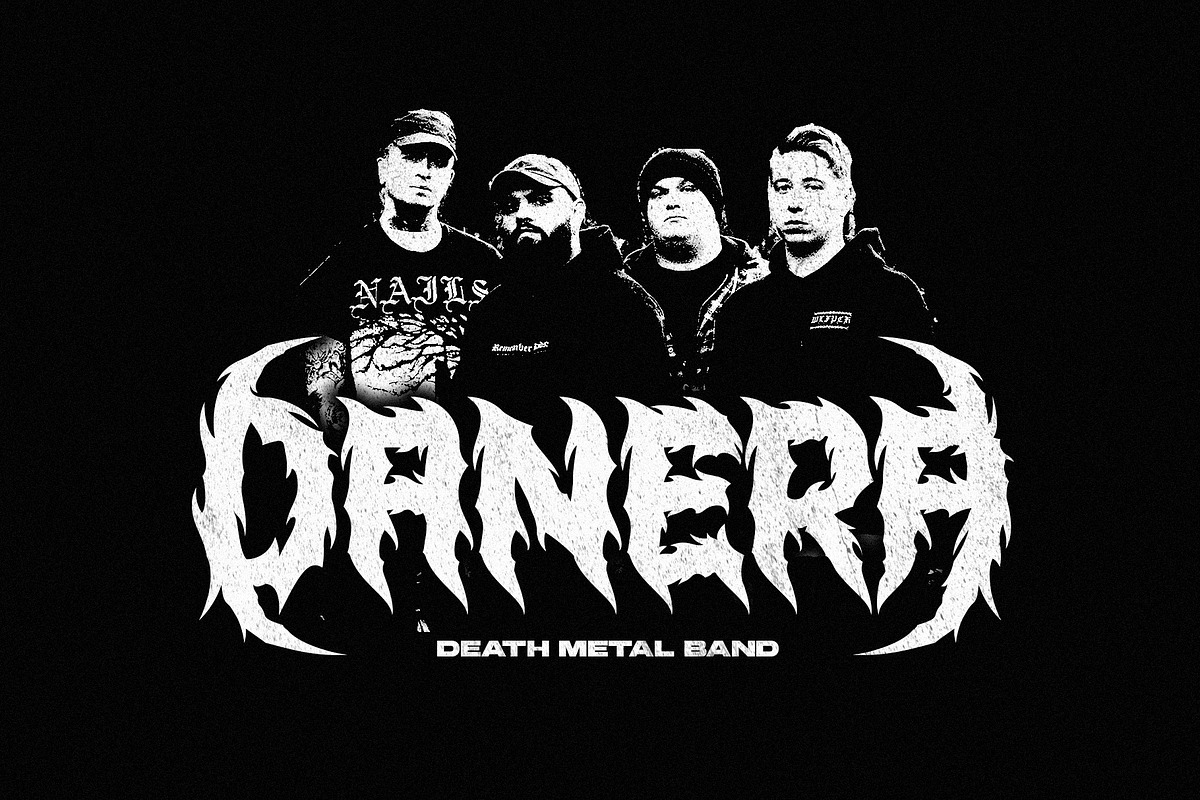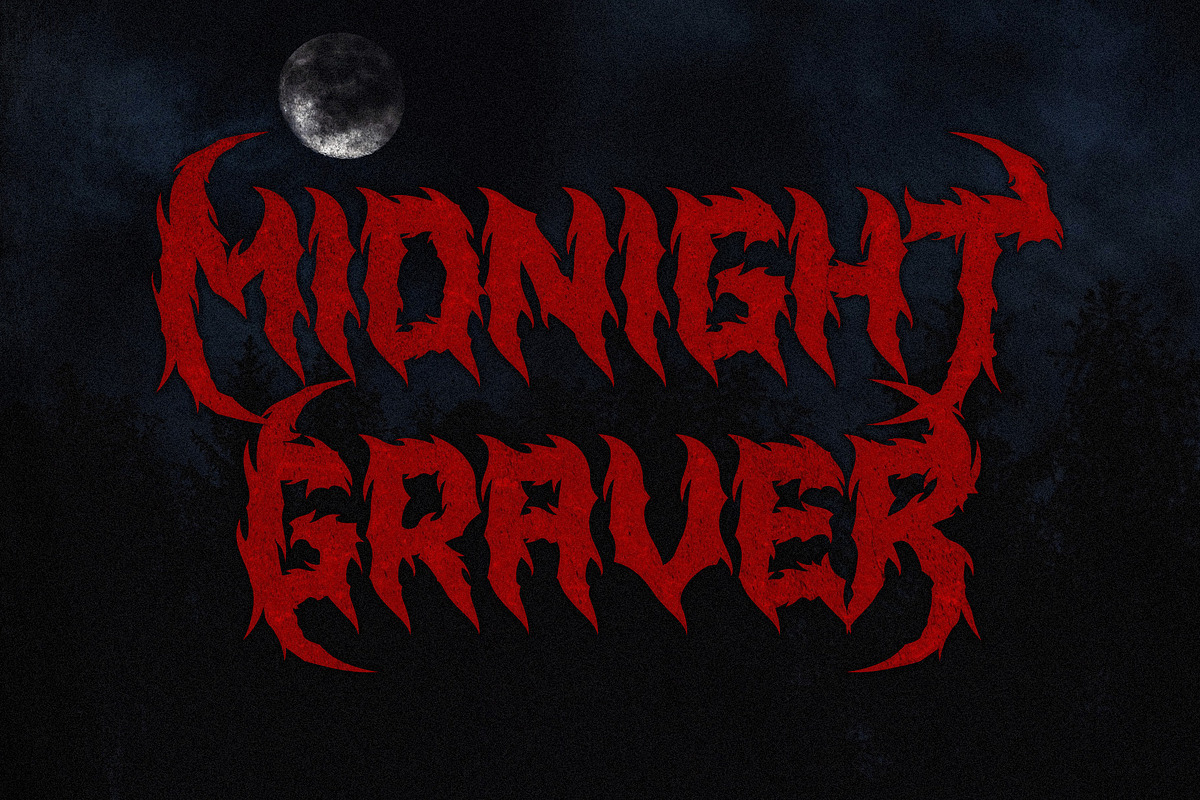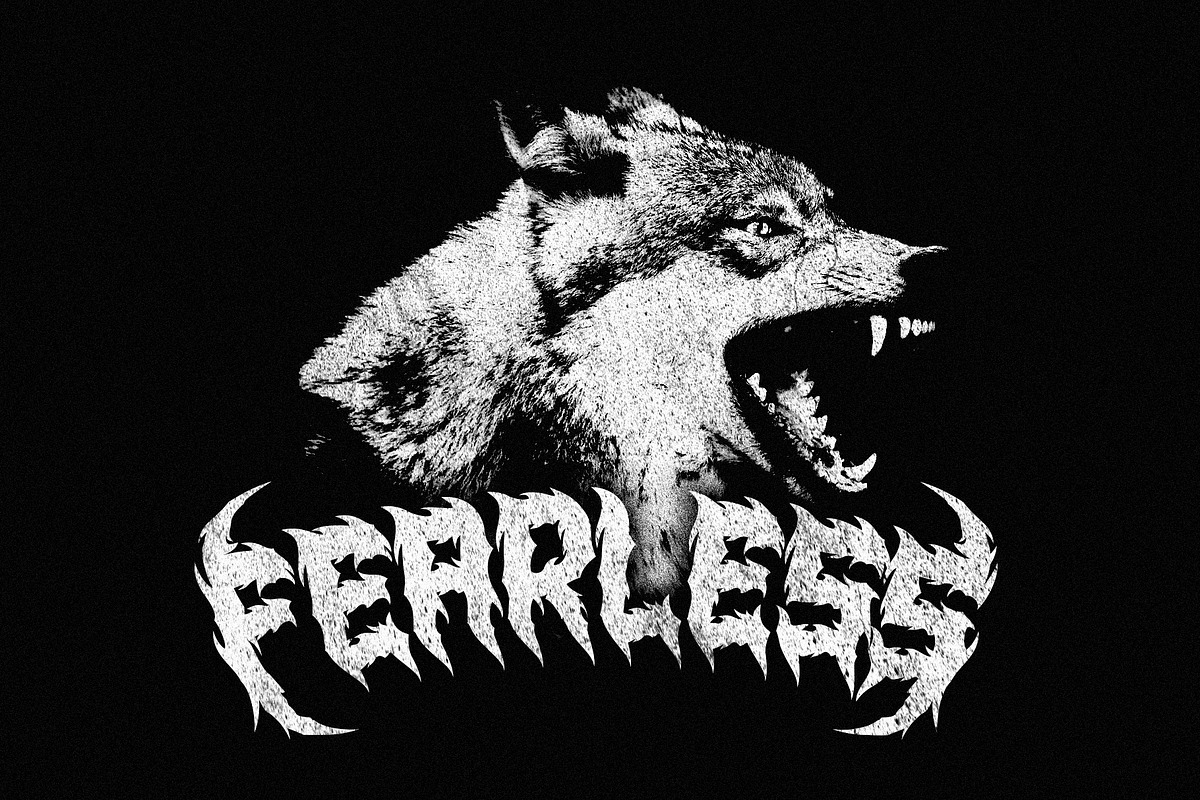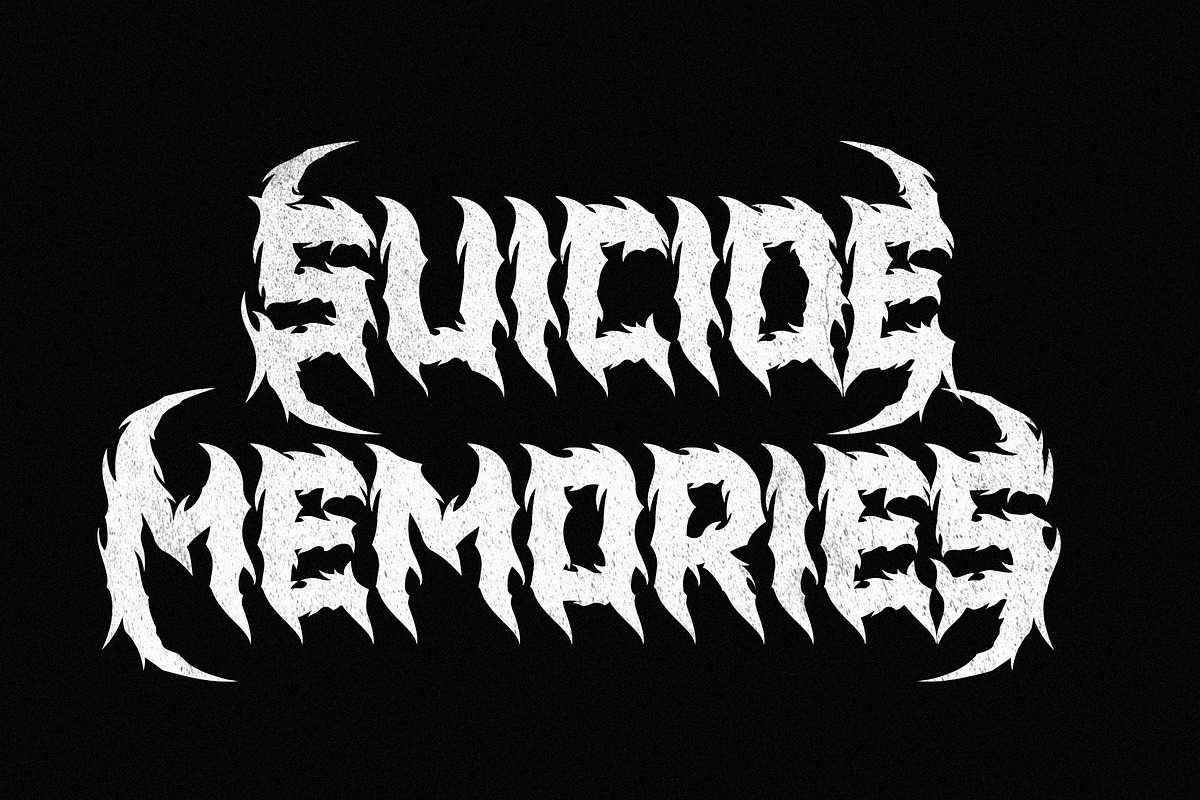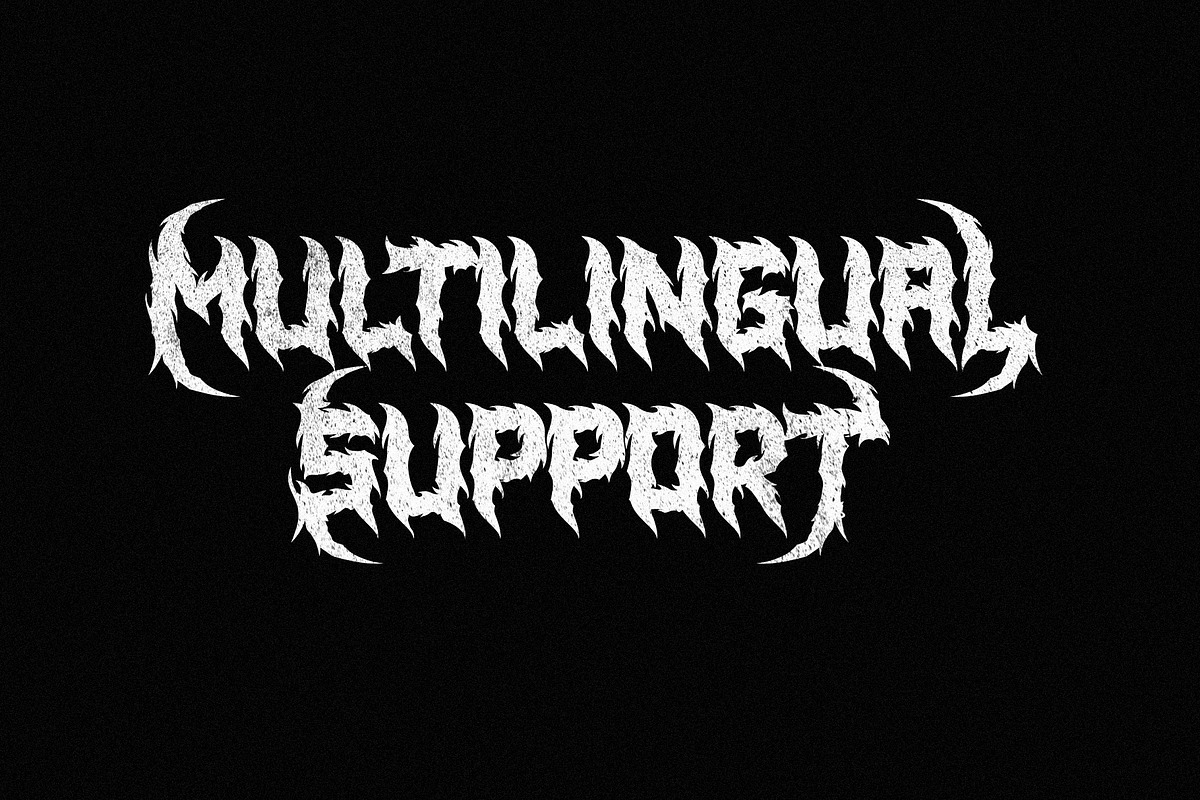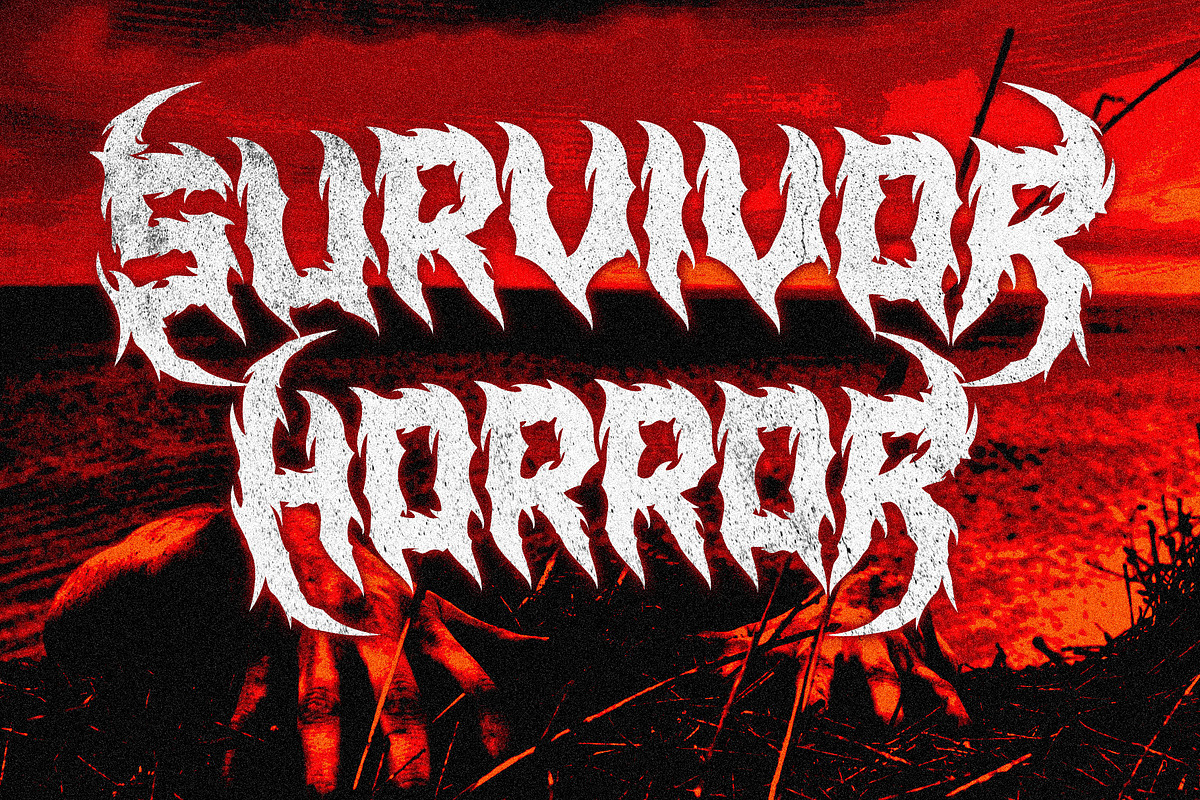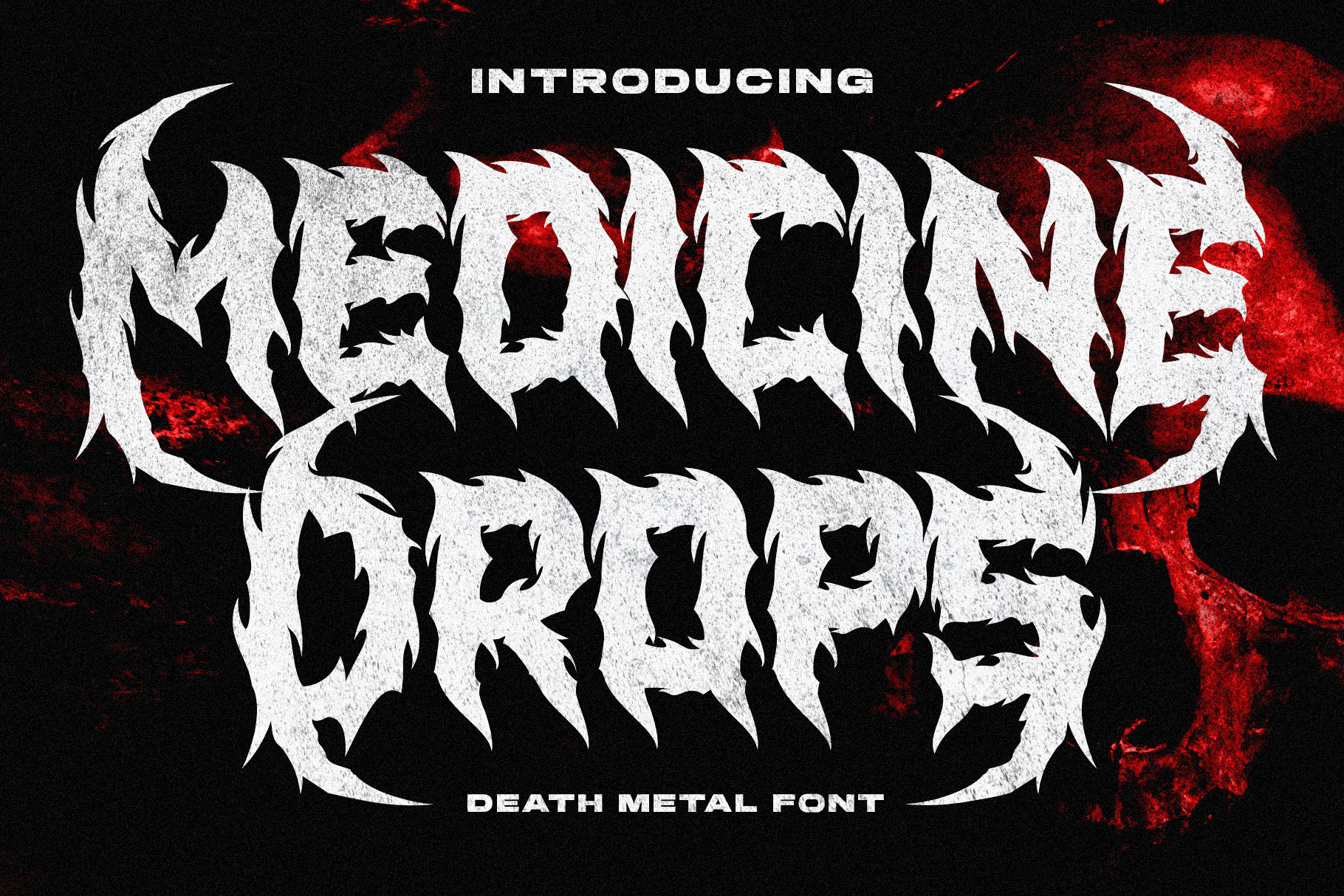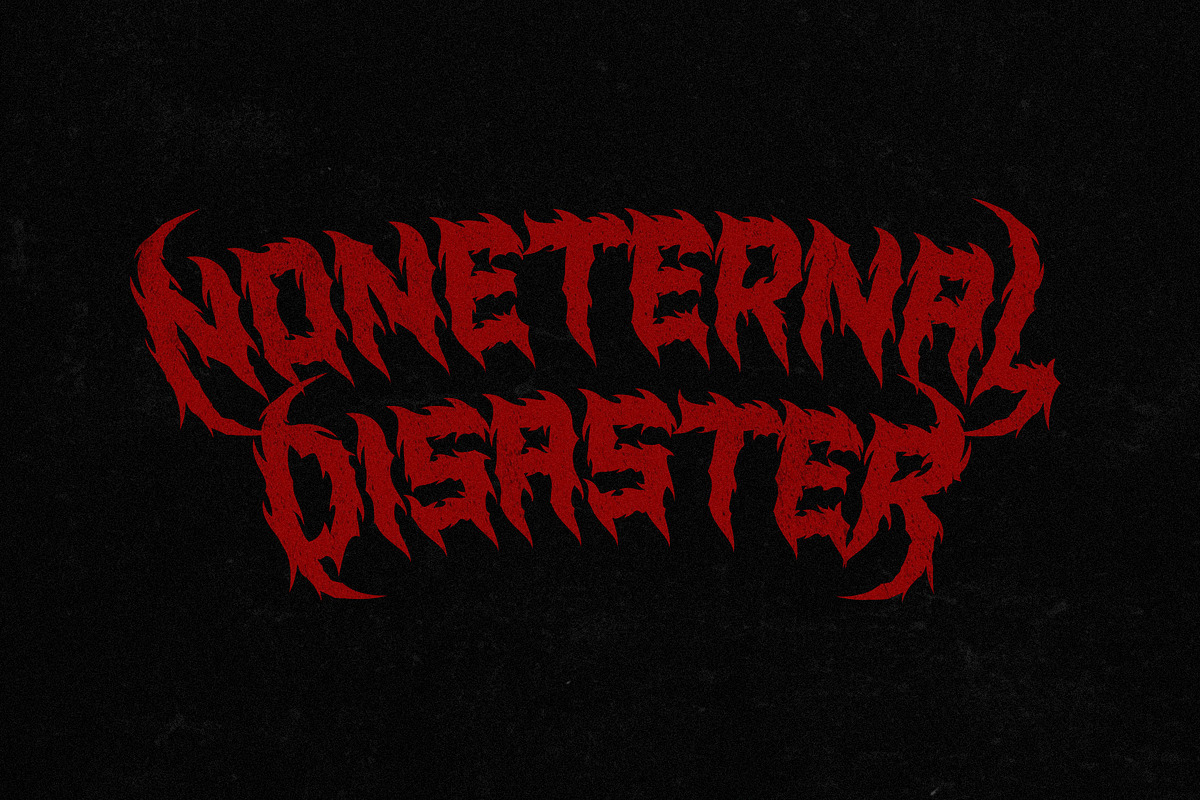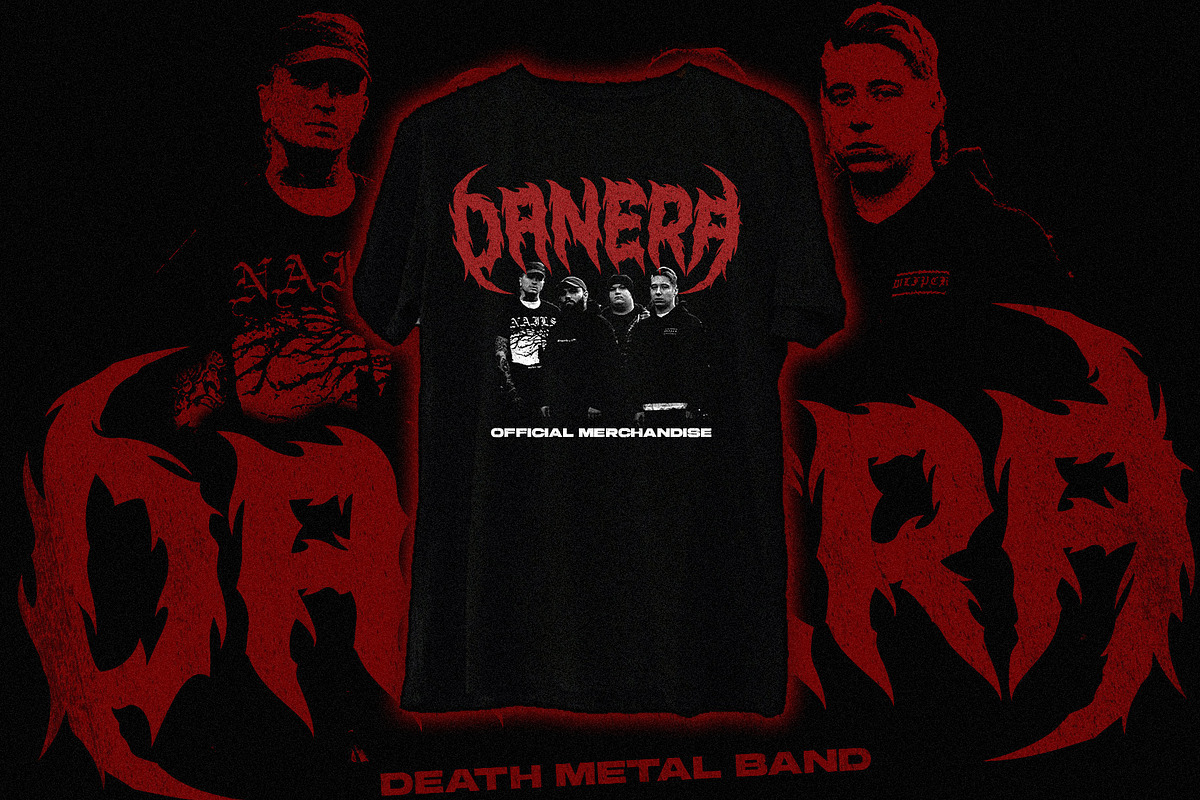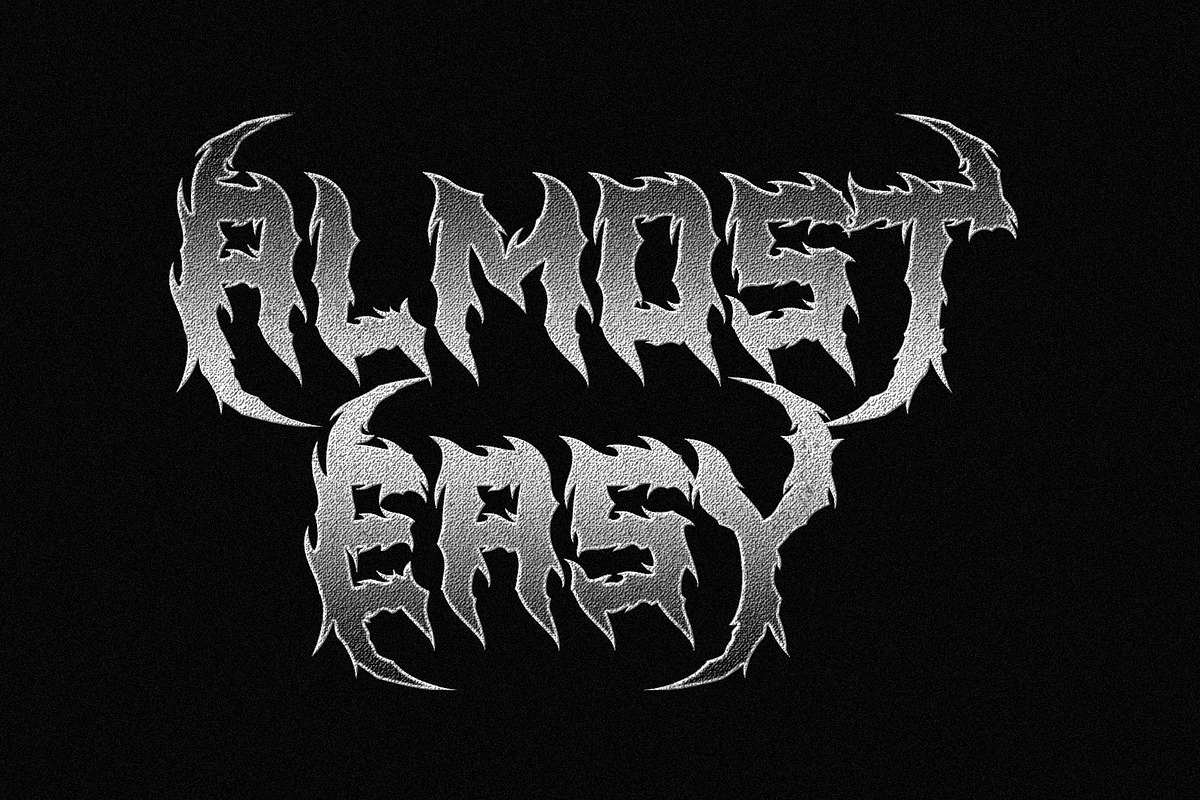
Medicine Drops - Death Metal Font
Medicine Drops is a font with a death metal theme. With bold style. Be an alternative to make logos, merch, or anything with the nuances of death metal music. This font perfect for logotype death metal band, logotype death metal brand, product, merchandise death metal band, death metal band covers, rock events, rock posters, rock magazine covers, branding, product design, labels and other creative project.